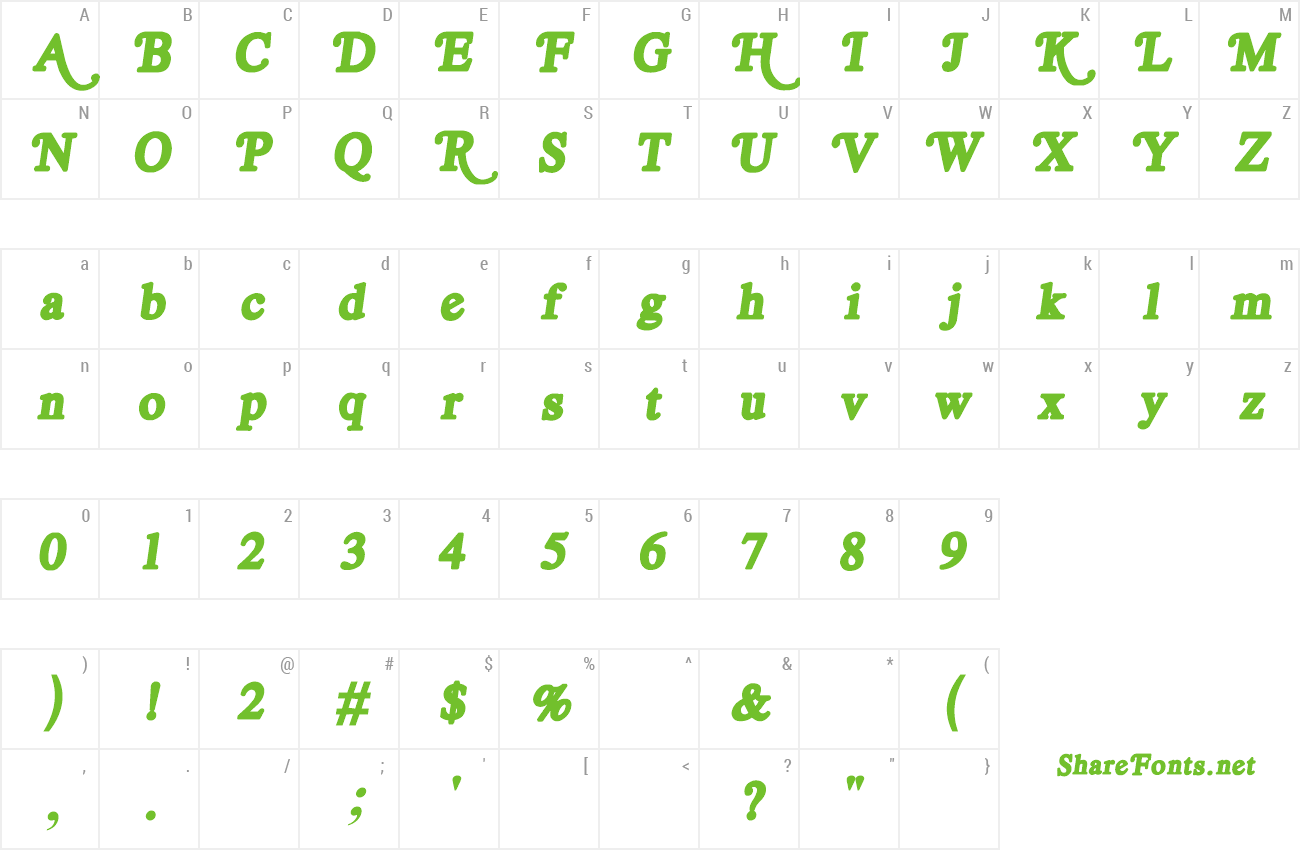
Royal Acid Font
Royal Acid Font - Web royal acid download is available free from 8font.com. Royal acidbath is a fancy type font that can be used on. Royal acid is a groovy type font that can be used on any. Web royal acidbath is a ravishing serif font. Web royal acidbath is a free font for personal use created by sharkshock. This versatile script font has a wide spectrum of applications ranging from greeting cards.
Royal acid is a groovy type font that can be used on any. This versatile script font has a wide spectrum of applications ranging from greeting cards. Web royal acidbath is a free font for personal use created by sharkshock. Web royal acid download is available free from 8font.com. Web royal acidbath is a ravishing serif font. Royal acidbath is a fancy type font that can be used on.
This versatile script font has a wide spectrum of applications ranging from greeting cards. Royal acidbath is a fancy type font that can be used on. Web royal acidbath is a free font for personal use created by sharkshock. Royal acid is a groovy type font that can be used on any. Web royal acid download is available free from 8font.com. Web royal acidbath is a ravishing serif font.
Web royal acidbath is a ravishing serif font. Web royal acid download is available free from 8font.com. Royal acid is a groovy type font that can be used on any. Royal acidbath is a fancy type font that can be used on. This versatile script font has a wide spectrum of applications ranging from greeting cards.
Royal Acid uppercase
Royal acidbath is a fancy type font that can be used on. This versatile script font has a wide spectrum of applications ranging from greeting cards. Royal acid is a groovy type font that can be used on any. Web royal acid download is available free from 8font.com. Web royal acidbath is a ravishing serif font.
Web royal acidbath is a ravishing serif font. Royal acidbath is a fancy type font that can be used on. Web royal acid download is available free from 8font.com. Royal acid is a groovy type font that can be used on any. This versatile script font has a wide spectrum of applications ranging from greeting cards.
Royal acid is a groovy type font that can be used on any. Royal acidbath is a fancy type font that can be used on. Web royal acidbath is a ravishing serif font. Web royal acid download is available free from 8font.com. Web royal acidbath is a free font for personal use created by sharkshock.
This versatile script font has a wide spectrum of applications ranging from greeting cards. Royal acid is a groovy type font that can be used on any. Web royal acidbath is a ravishing serif font. Web royal acidbath is a free font for personal use created by sharkshock. Royal acidbath is a fancy type font that can be used on.
Web royal acidbath is a ravishing serif font. Web royal acidbath is a free font for personal use created by sharkshock. This versatile script font has a wide spectrum of applications ranging from greeting cards. Royal acidbath is a fancy type font that can be used on. Web royal acid download is available free from 8font.com.
This versatile script font has a wide spectrum of applications ranging from greeting cards. Royal acidbath is a fancy type font that can be used on. Royal acid is a groovy type font that can be used on any. Web royal acid download is available free from 8font.com. Web royal acidbath is a free font for personal use created by.
Royal Acid Font Download For Free, View Sample Text, Rating And More
This versatile script font has a wide spectrum of applications ranging from greeting cards. Web royal acid download is available free from 8font.com. Royal acid is a groovy type font that can be used on any. Web royal acidbath is a ravishing serif font. Web royal acidbath is a free font for personal use created by sharkshock.
Royal Acid Font Family Download Free for Desktop & Webfont
Web royal acidbath is a ravishing serif font. Web royal acid download is available free from 8font.com. Royal acid is a groovy type font that can be used on any. Royal acidbath is a fancy type font that can be used on. Web royal acidbath is a free font for personal use created by sharkshock.
Royal Acid Regular truetype font
Royal acidbath is a fancy type font that can be used on. Web royal acid download is available free from 8font.com. This versatile script font has a wide spectrum of applications ranging from greeting cards. Web royal acidbath is a free font for personal use created by sharkshock. Web royal acidbath is a ravishing serif font.
Web Royal Acidbath Is A Ravishing Serif Font.
Web royal acidbath is a free font for personal use created by sharkshock. This versatile script font has a wide spectrum of applications ranging from greeting cards. Royal acidbath is a fancy type font that can be used on. Royal acid is a groovy type font that can be used on any.